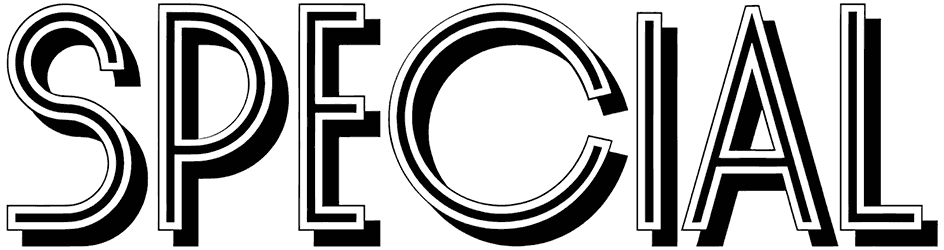
Special Font
When you look at the Special font, its modern style immediately grabs your attention. This inline font has a unique design and seems entertaining to the viewers. You may use this art deco font in several situations, such…
When you look at the Special font, its modern style immediately grabs your attention. This inline font has a unique design and seems entertaining to the viewers.
You may use this art deco font in several situations, such as websites, social media posts, and applications; however, it does not support lowercase letters, numbers, and symbols. This shadow font’s letters have shadows, making them feel 3D. Moreover, they have sharp edges and sturdy forms, creating a frightening feeling.